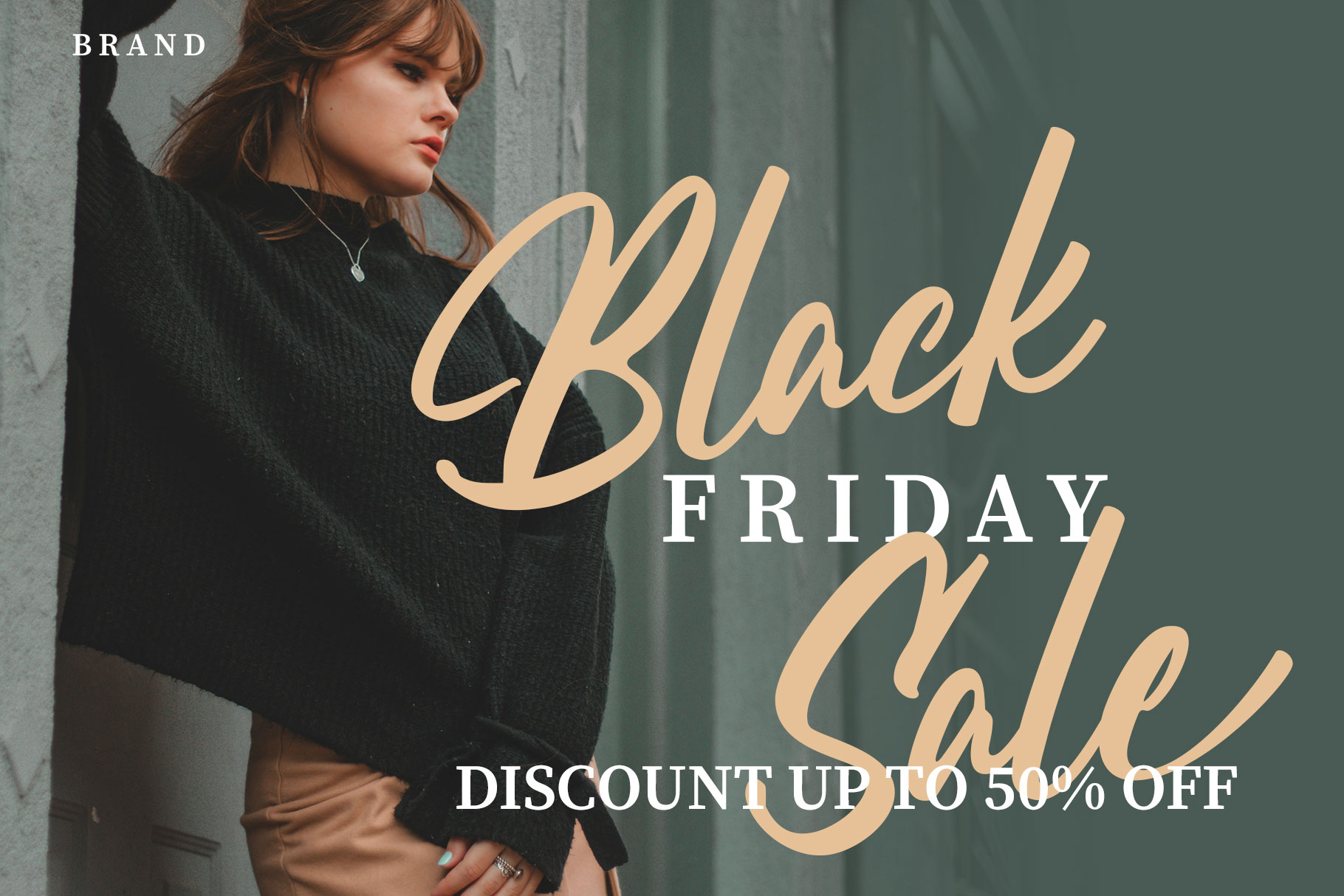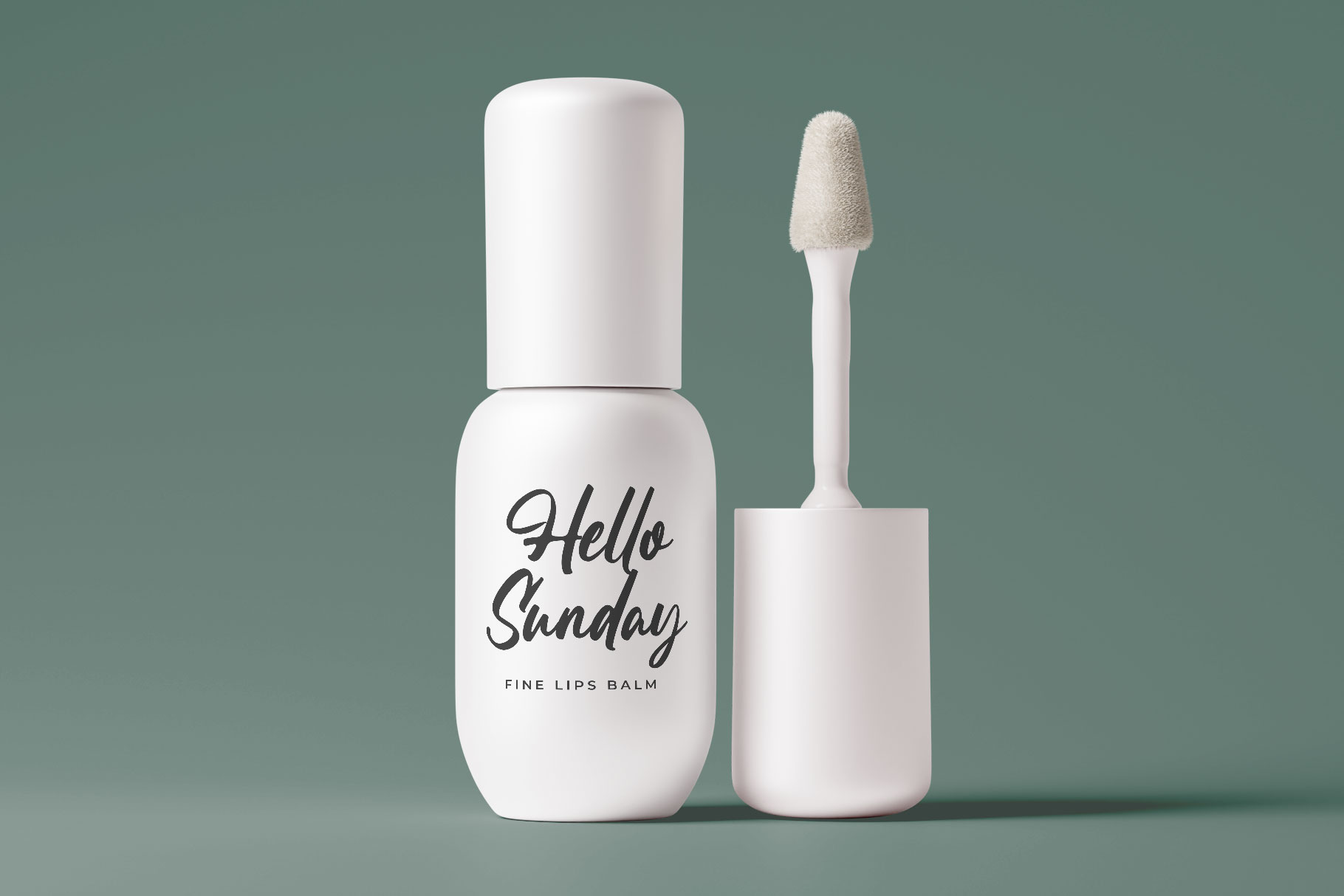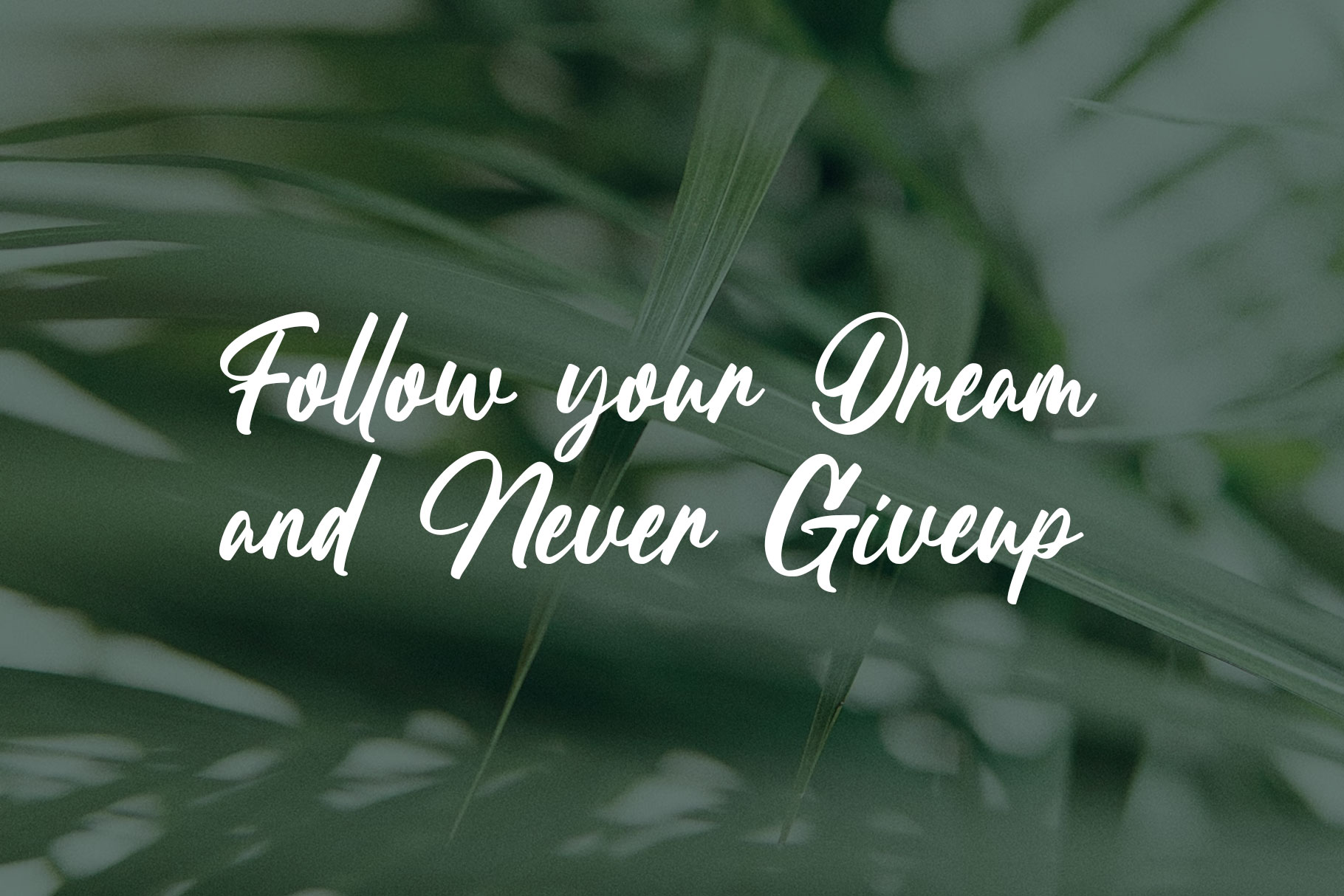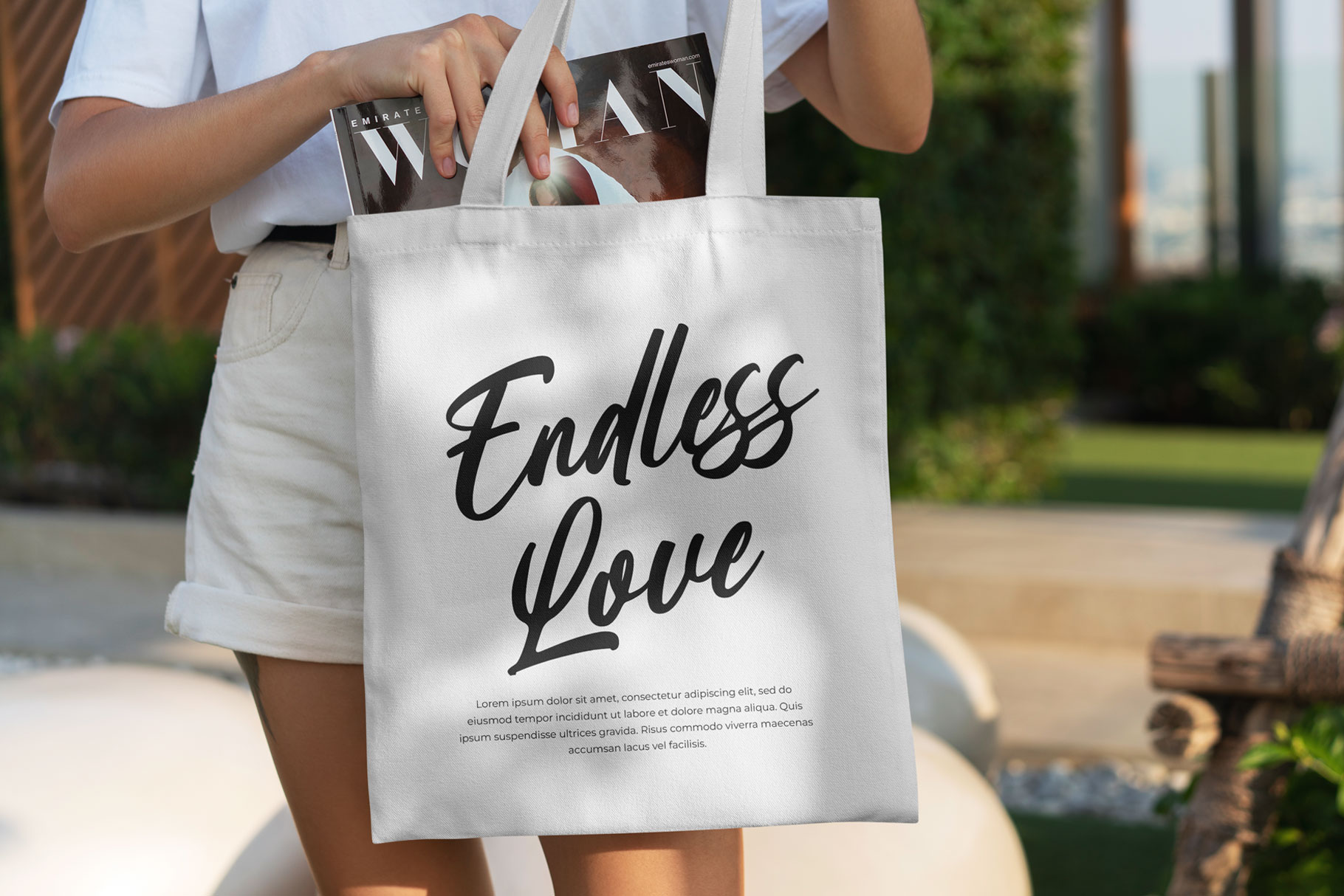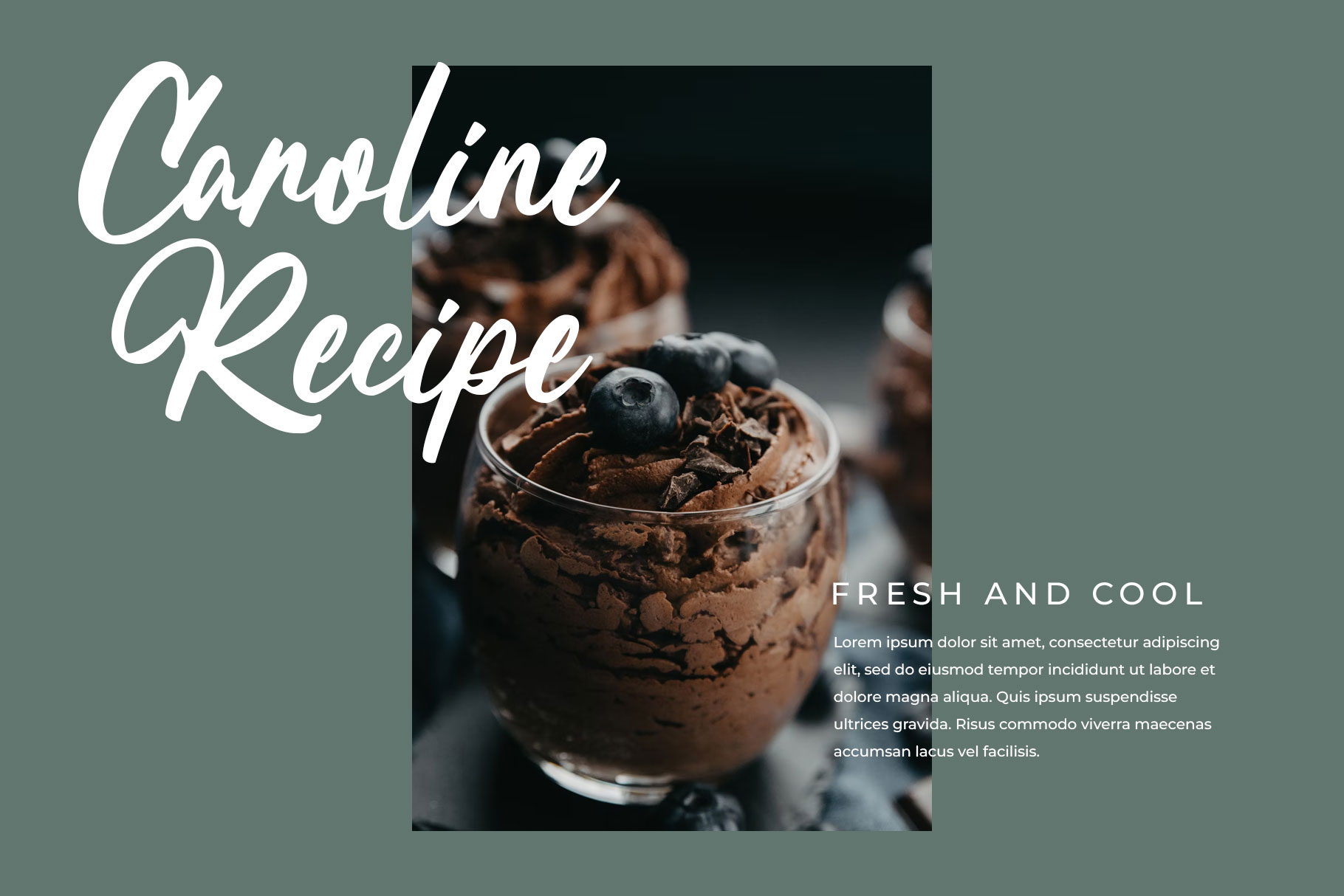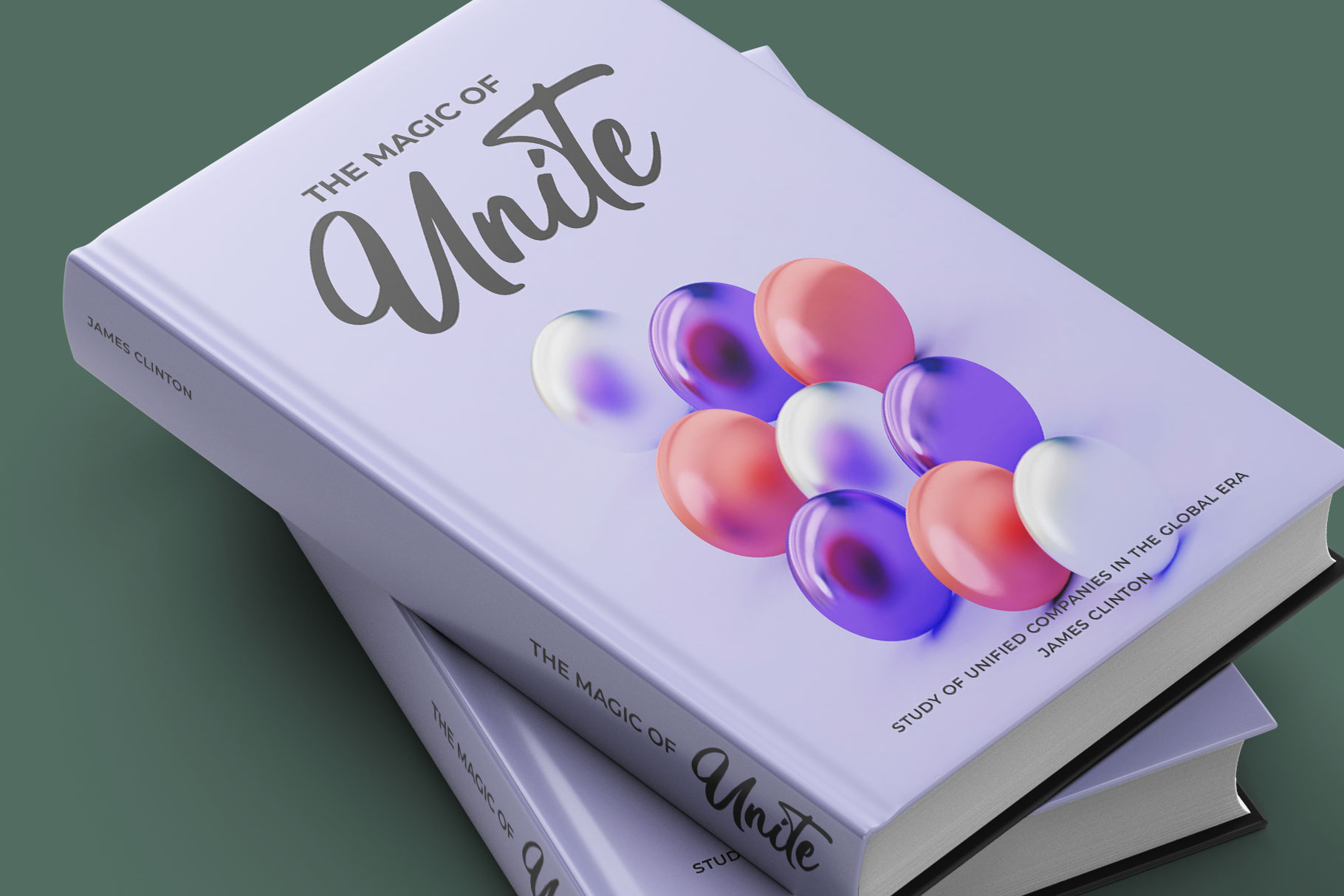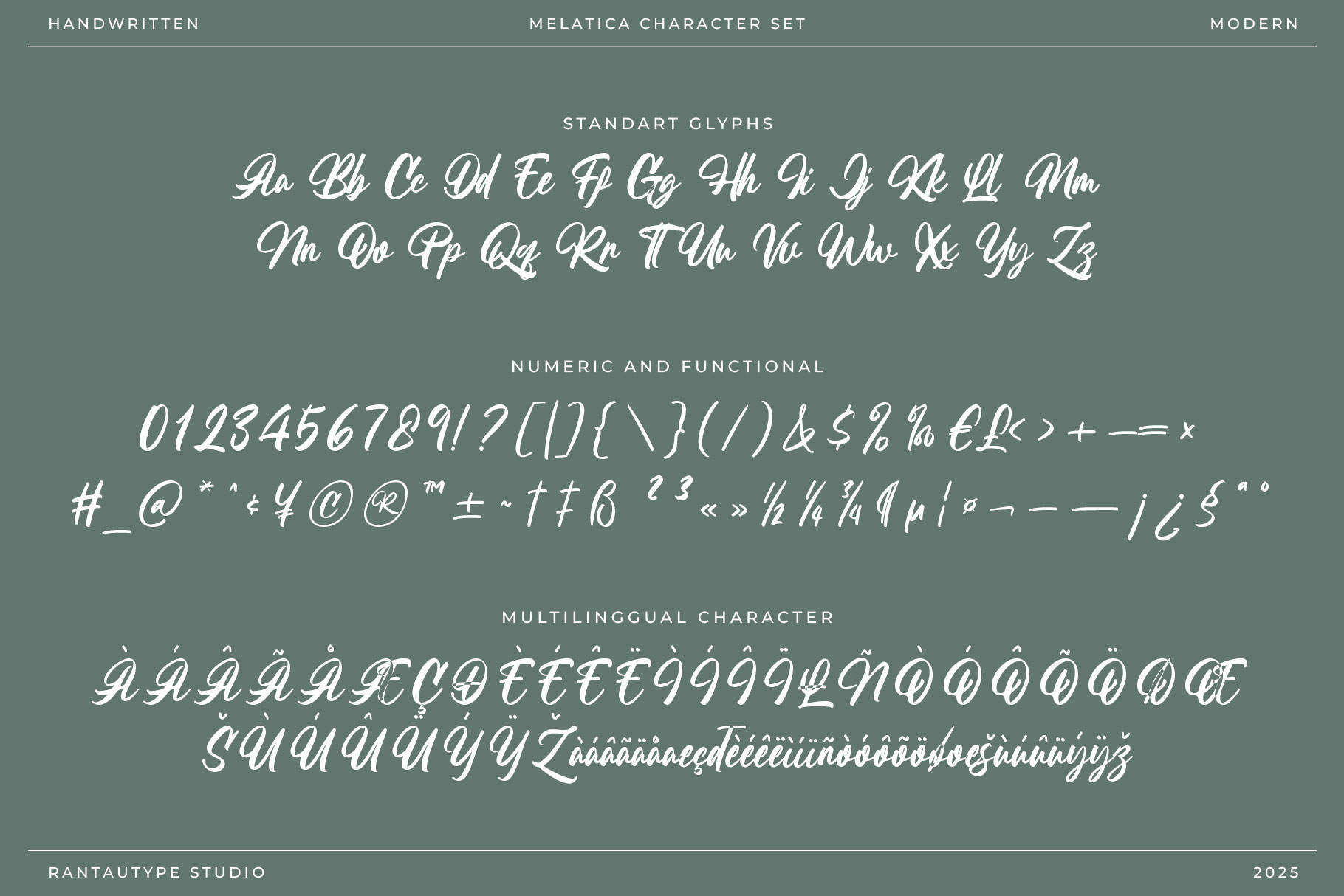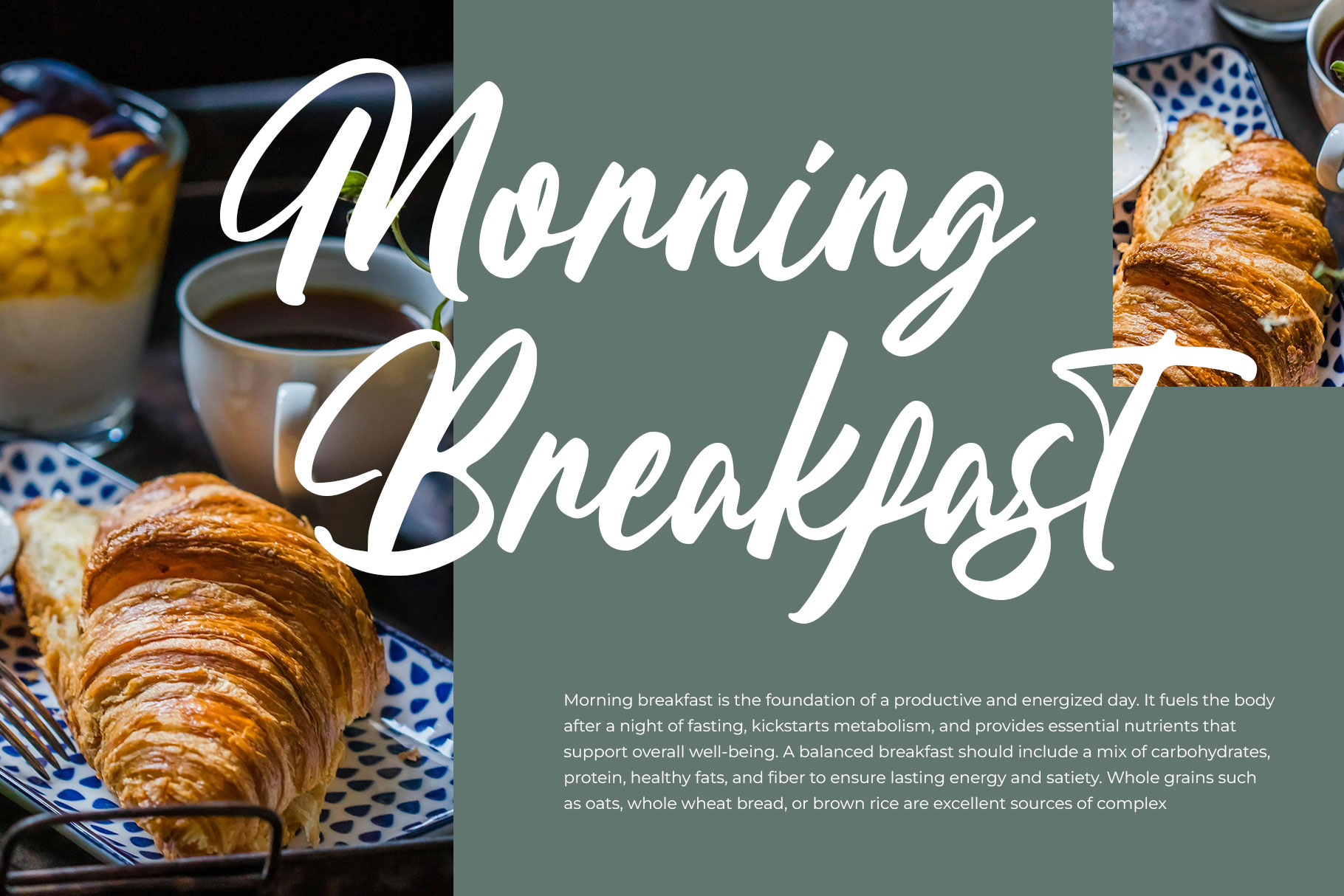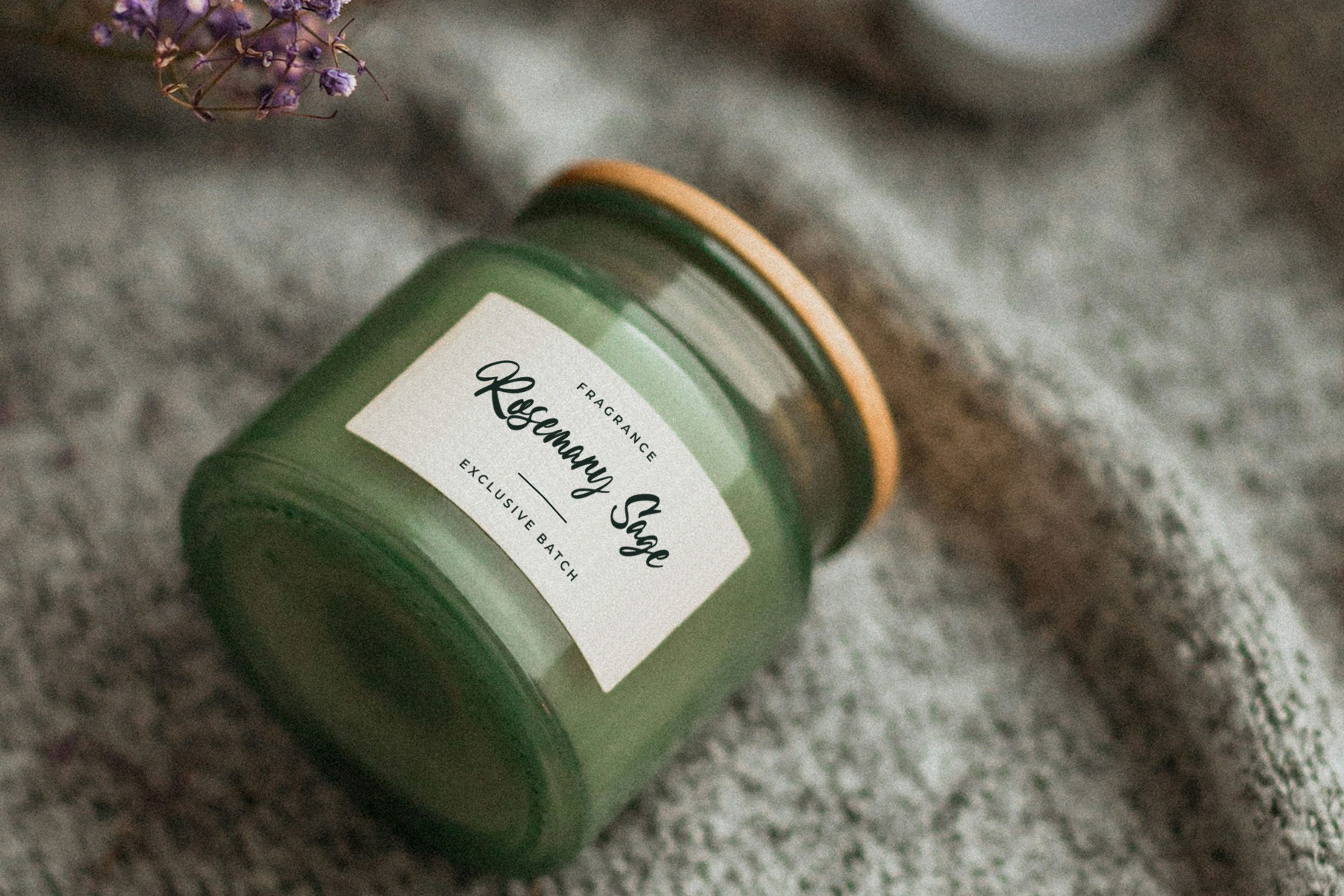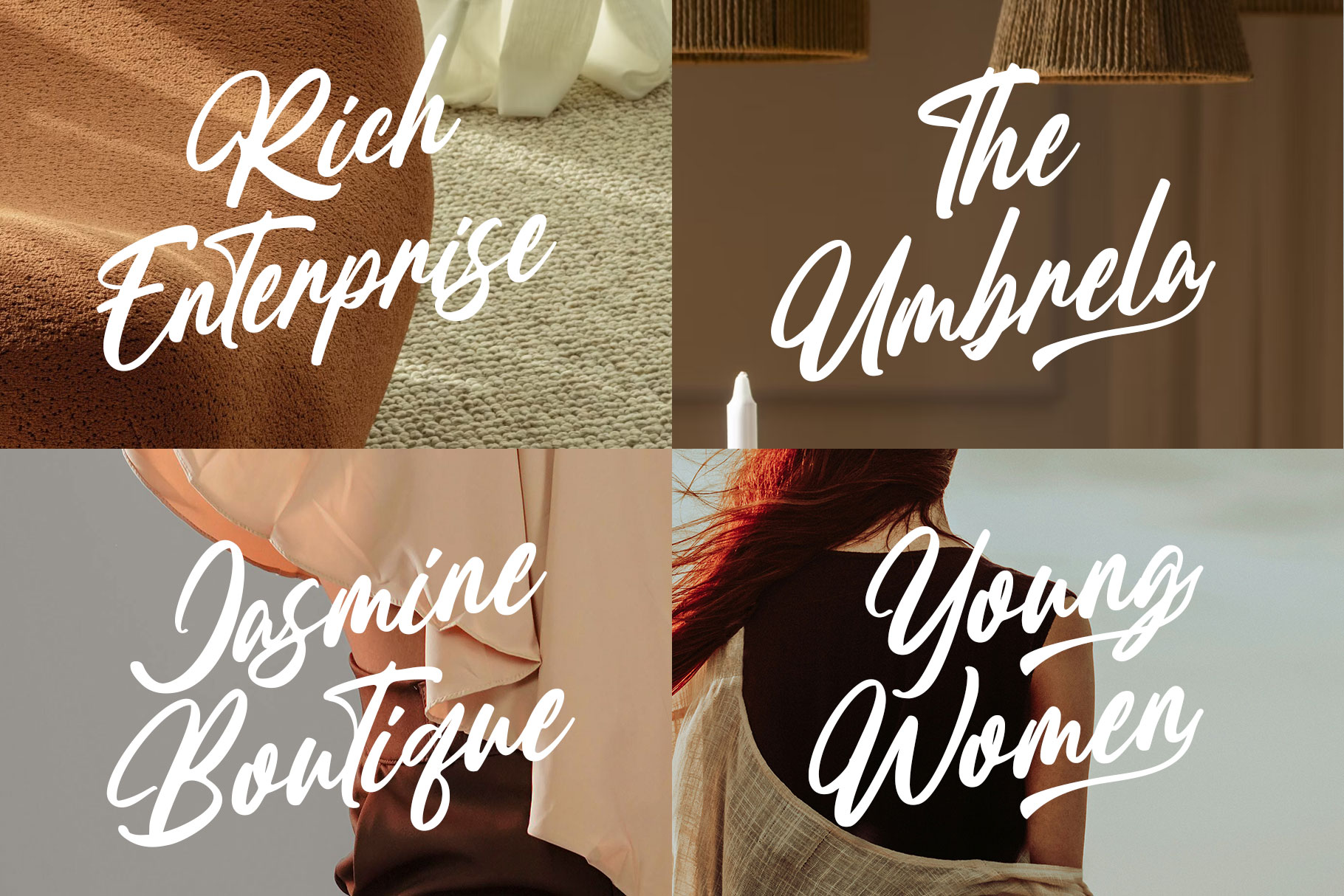
Melatica is modern handwritten font with classy style. Melatica is a perfectly choice for any creative endeavor, creating, modern, lifestyle design such as logotype, title, cover, branding, invitations, wedding designs, display and magazine, social media posts, advertisements, printed quotes, product packaging, corporate brand, product designs, labels, photography, watermarks, special events and any other project with modern touch.
Melatica Modern Handwritten Font